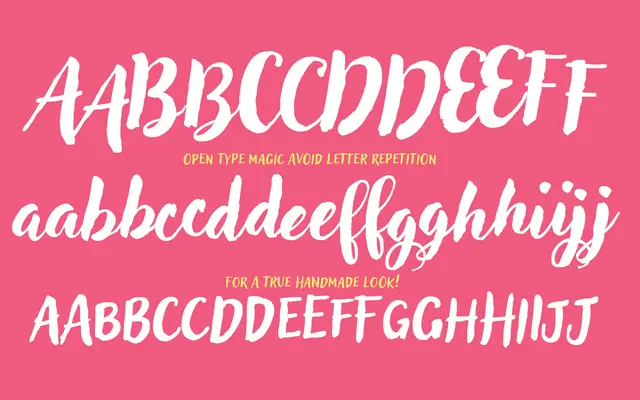
Adlery
A brush display script by Cosimo Lorenzo Pancini with three stylistic variants and alternating lowercase letters to avoid repeated glyphs.
Designed for display use, the family comprises three styles: Pro, Pro Blockletter and Swash. A double set of lowercase alphabets cycles automatically so that no two consecutive identical letters share the same form, giving running text a more natural, handwritten rhythm. Coverage extends across Latin and Cyrillic scripts with 639 glyphs supporting 199 languages.
A handmade brush typeface designed explicitly for display use, with fluid letterforms and alternating lowercase glyphs typical of brush script styles.